A follow-up on yesterday’s post about avoiding bold fonts whenever you can. Sometimes, reducing font sizes can actually help you increase the readability of a point. See the example below.
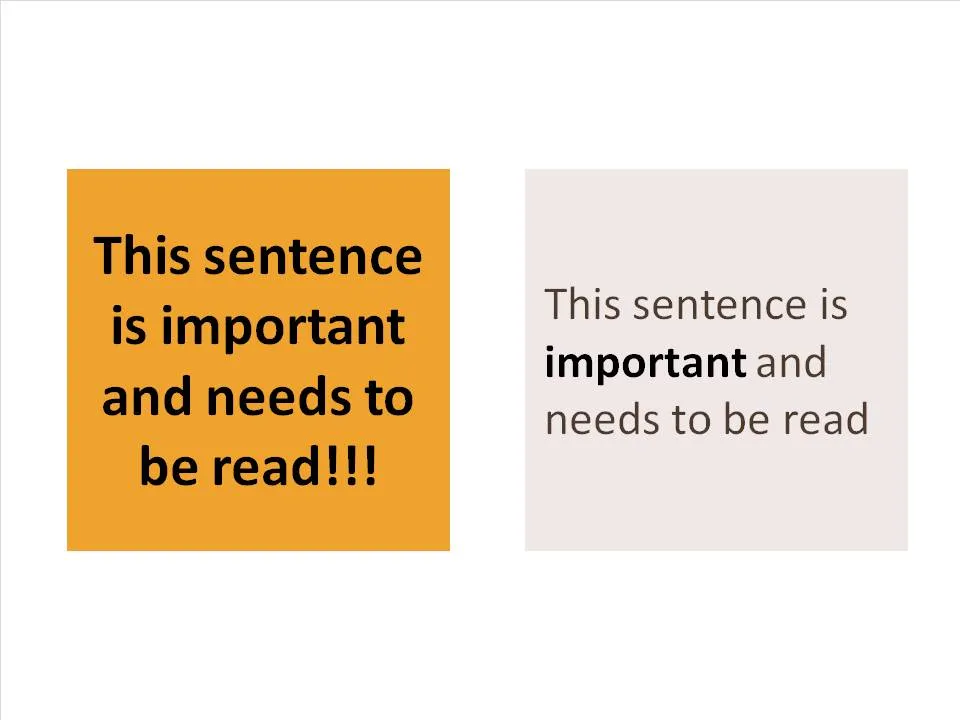
Why is it easier to read the box on the right? (At least I find it easier to read)
- There is (empty) white space around the text, drawing my attention to the sentence that now sticks out. On the left side, the sentence blends into the very loud background noise of the slide. The text now looks like a coherent piece of information that can be interpreted by the brain in one snapshot, as opposed to the left side where we need to read out each word left to right, top to bottom to see what’s written there.
- The proportion of the text block is more rectangular, close to the 16:9 aspect ratio of a wide screen TV, a shape that is more natural for the brain to absorb information
- Removing the bold font except for one word makes the whole typography more calm and easier to read
- Taking out screaming exclamation marks and left-aligning the paragraph improves readability further
Less is more.